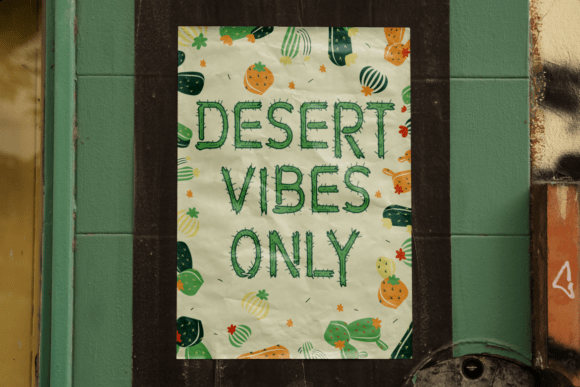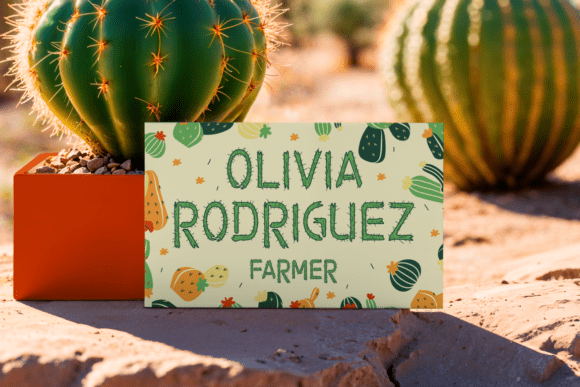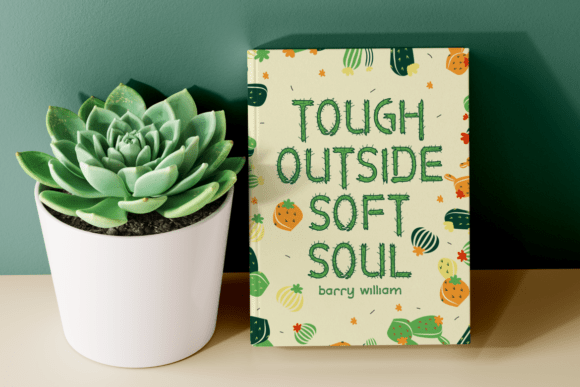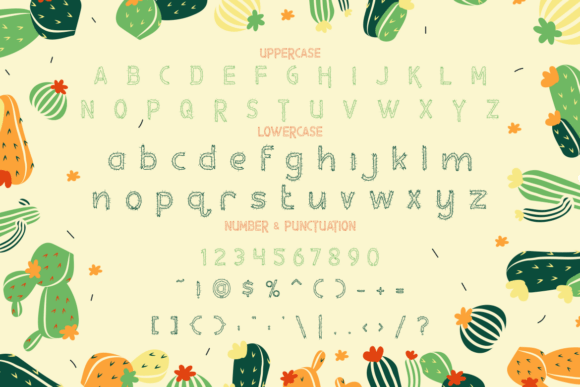
Introduction to Rumble Thorns Font
Imagine you’re working on a creative project, and you need the perfect font to capture the essence of your desert-themed design. The sun beats down, and you’re stuck scrolling through font libraries, searching for something that screams ‘desert vibes.’ Suddenly, you stumble upon Rumble Thorns Font – a delightful cactus-inspired display font that transports you to the heart of the desert. Its sharp, lively spikes and bold strokes evoke a sense of rugged charm, making it an ideal choice for standout titles and decorative designs.
As a designer, you’re always on the lookout for unique design resources that can elevate your work and make it stand out from the crowd. Rumble Thorns Font is a high-quality design resource that’s perfect for branding, packaging, and social campaigns. Its transparent background and full character set, including numbers and punctuation, make it a valuable addition to your design toolkit.
Key Features of Rumble Thorns Font
- High-quality design resource with a unique, fantasy-inspired aesthetic, perfect for creative projects.
- Features a transparent background, allowing for easy customization and layering in your design.
- Unique, intricate design elements make it an excellent choice for creative projects that require a touch of fantasy and magic.
Honest Review: Rumble Thorns Font
I recently stumbled upon the Rumble Thorns Font and I must say it’s been a game-changer for my creative projects. The font is free to download and has a high quality feel to it, making it a valuable design resource.
- ✨ Unique and bold design style that adds a touch of elegance to any project.
- ✨ High quality vector graphics that ensure crisp and clear text even when scaled up.
- ✨ Transparent background option that allows for easy layering and composition.
- ⚠️ Limited font sizes and styles, which may not be ideal for projects requiring a wide range of typography options.
- ⚠️ Some characters may not render properly on certain platforms or devices, which could lead to inconsistencies in design.
Overall, I’m impressed with the Rumble Thorns Font and would highly recommend it for creative projects that require a unique and bold design style. With a little creativity and experimentation, you can work around its limitations and achieve stunning results.
Rumble Thorns Font is perfect for creative projects that require a high-quality, unique font. Some common use cases include:
- Designing a logo for a business or brand
- Creating a custom title for a presentation or document
- Adding a touch of elegance to a website or social media post
Tips for Getting the Most Out of Rumble Thorns Font
To get the most out of Rumble Thorns Font, use it on a transparent background to add depth and dimension to your design. You can also pair it with other design resources, such as images and graphics, to create a cohesive look. With its high-quality design and free download, Rumble Thorns Font is a valuable addition to any design resource library.